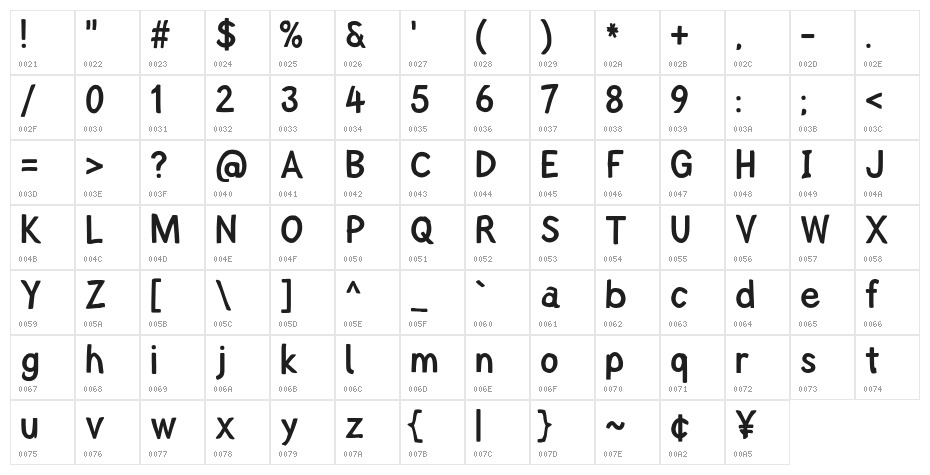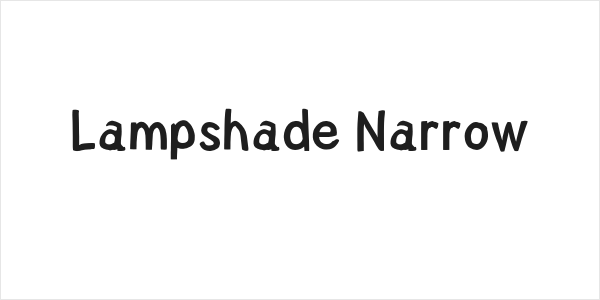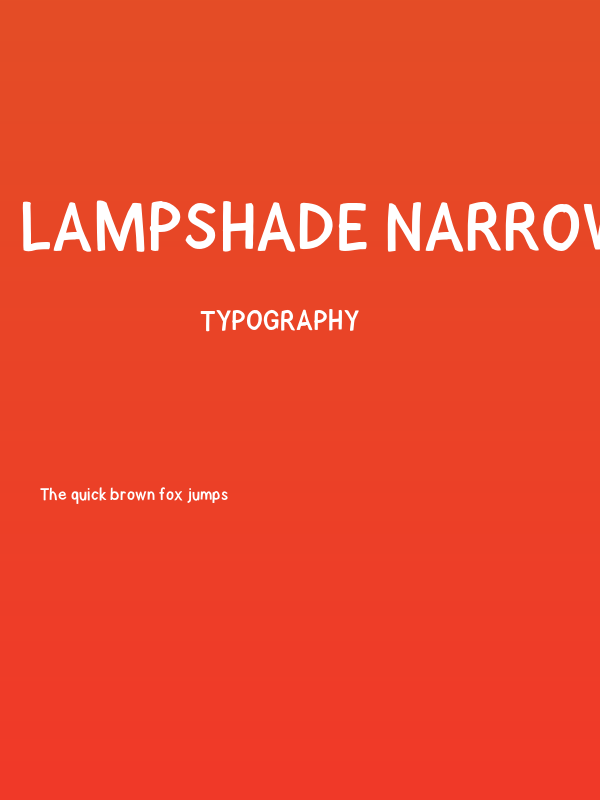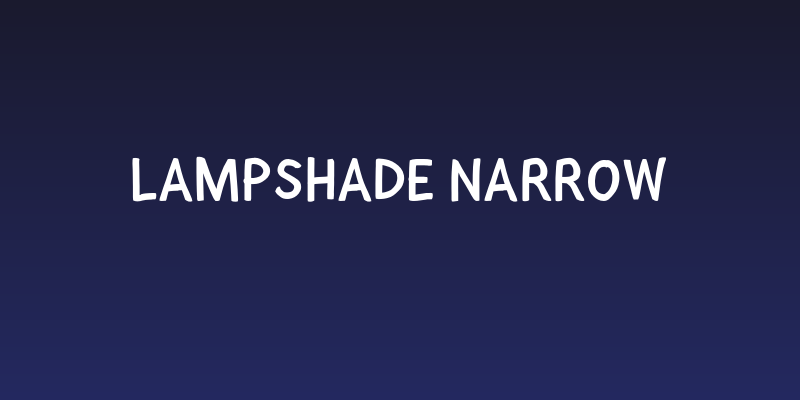
Lampshade Narrow Font
Lampshade Narrow Description
This font features a playful and informal style with a handwritten appearance. The characters are slightly rounded with a consistent stroke width, giving it a friendly and approachable look. The uppercase and lowercase letters maintain a uniform height, while the numerals are clear and easily readable. Special characters are well-integrated, maintaining the overall aesthetic. The font's narrow design makes it suitable for compact spaces while retaining legibility.
| Proposed Projects | Ideal for children's books, casual invitations, greeting cards, and playful branding projects. |